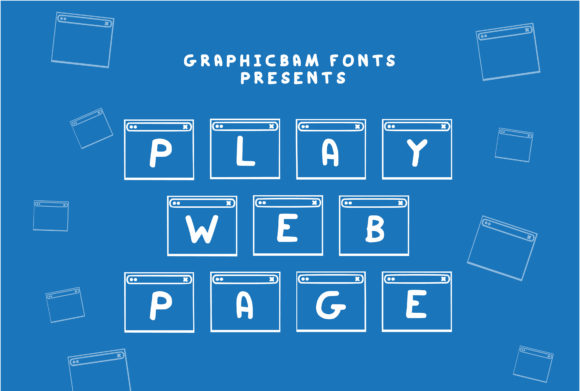
Unleash your creativity with Play Web Page Font, a visual masterpiece designed to captivate your audience. This extraordinary decorative font, brought to you by GraphicsBam Fonts, is an essential addition to your digital toolbox, promising to transform your designs into stunning works of art.
With its intricate details and captivating charm, Play Web Page Font will leave a lasting impression on your projects. Whether you're a seasoned designer or just starting, this font will elevate your creations to new heights.
Imagine the possibilities: craft logos that exude elegance, create website headers that demand attention, or design social media posts that captivate your followers. The possibilities are endless with Play Web Page Font.
This versatile font is a true chameleon, adapting seamlessly to any project. Its effortless flow and impeccable style will complement your designs, adding a touch of sophistication and uniqueness. Unleash your imagination and let Play Web Page Font guide you to design brilliance.
Join the ranks of creative professionals who have discovered the magic of Play Web Page Font. Elevate your projects, captivate your audience, and leave an indelible mark on the digital landscape. Make your designs shine brighter than ever before with this exceptional decorative font.
Don't settle for ordinary fonts. Choose Play Web Page Font and unlock a world of creative possibilities. Transform your designs into captivating masterpieces that will leave your audience in awe.